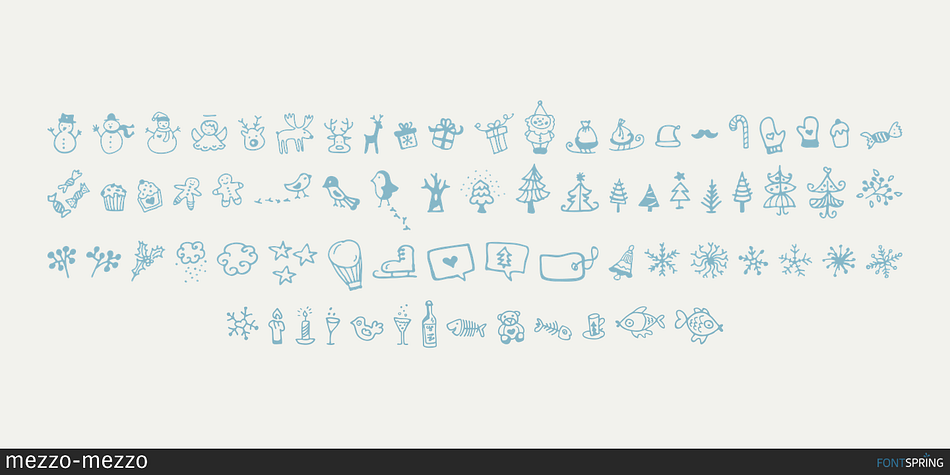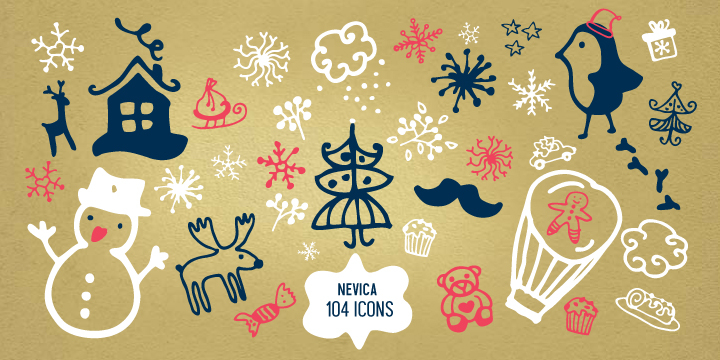
Nevica is a dingbat font published by mezzo-mezzo.
Nevica font offers 103 hand drawn, unique winter icons, it is a perfect set of clip art for designing posters, mugs, pillows, holiday cards and all other type of bespoke stationary.